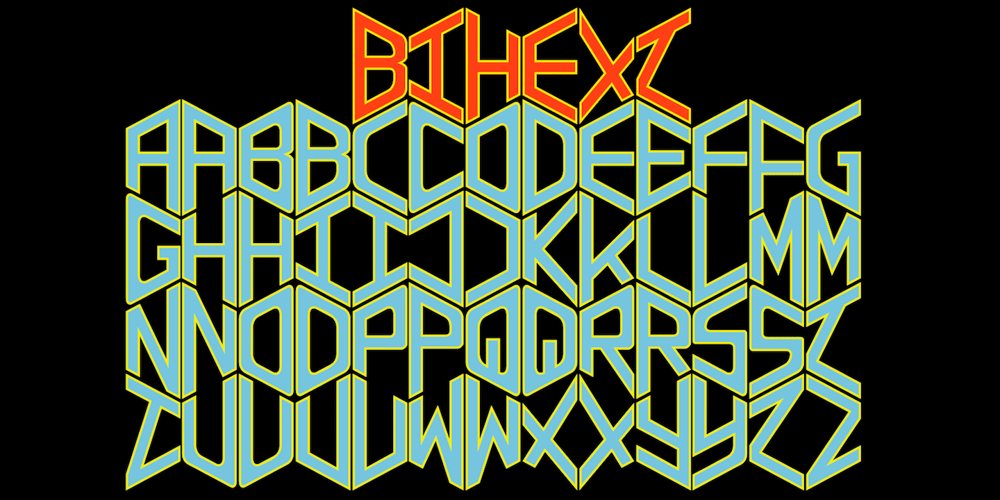
Bihext
Bihext font
Bihext Font Family was designed by Robert Schenk and published by Ingrimayne Type. Bihext contains 2 styles and family package options. The letters of Bihext fit into the trapezoids formed by bisecting hexagons from the top corner to the bottom corner. Because these trapezoids have two orientations, there are two sets of characters and the typeface was designed assuming that the user would want to alternate these two character sets. The alternating of characters is done automatically with the OpenType feature of contextual alternatives (calt) in applications that support it. The typeface is monospaced with very tightly letter spacing. If the letter spacing seems too tight, consider alternating colors to make the individual letters stand out as an alternative to loosening the letter spacing. Almost certainly the user will need to adjust line spacing if more than one line of text is used. The family includes an outline style that can be used in a layer above the filled style. A decorative, display face, Bihext is too difficult to read to be used for long text.